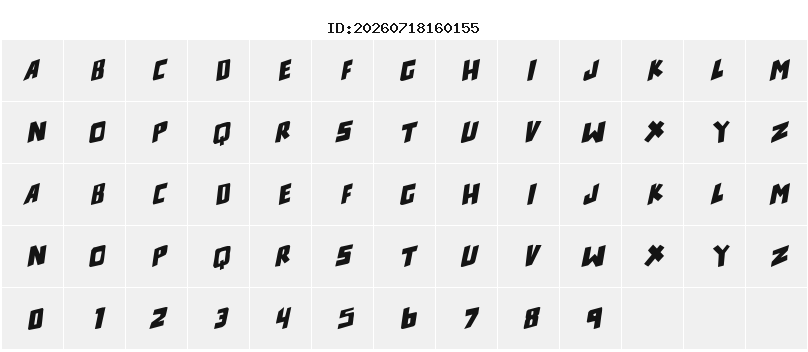
• Font Name: counter hit!
• Font Style: Italique
• Font ID: counter hit! Italic:Version 1.00
• Full Font Name: counter hit! Italic
• Version: Version 1.00 December 13, 2012, initial release
• PostScript Name: counterhit!-Italic
• Designer: Andeh Pinkard
About counter hit!.ttf
counter hit!.ttf is a modern, elegant sans-serif font designed for ultimate readability and visual harmony. Perfect for branding, headlines, web design, and print materials.